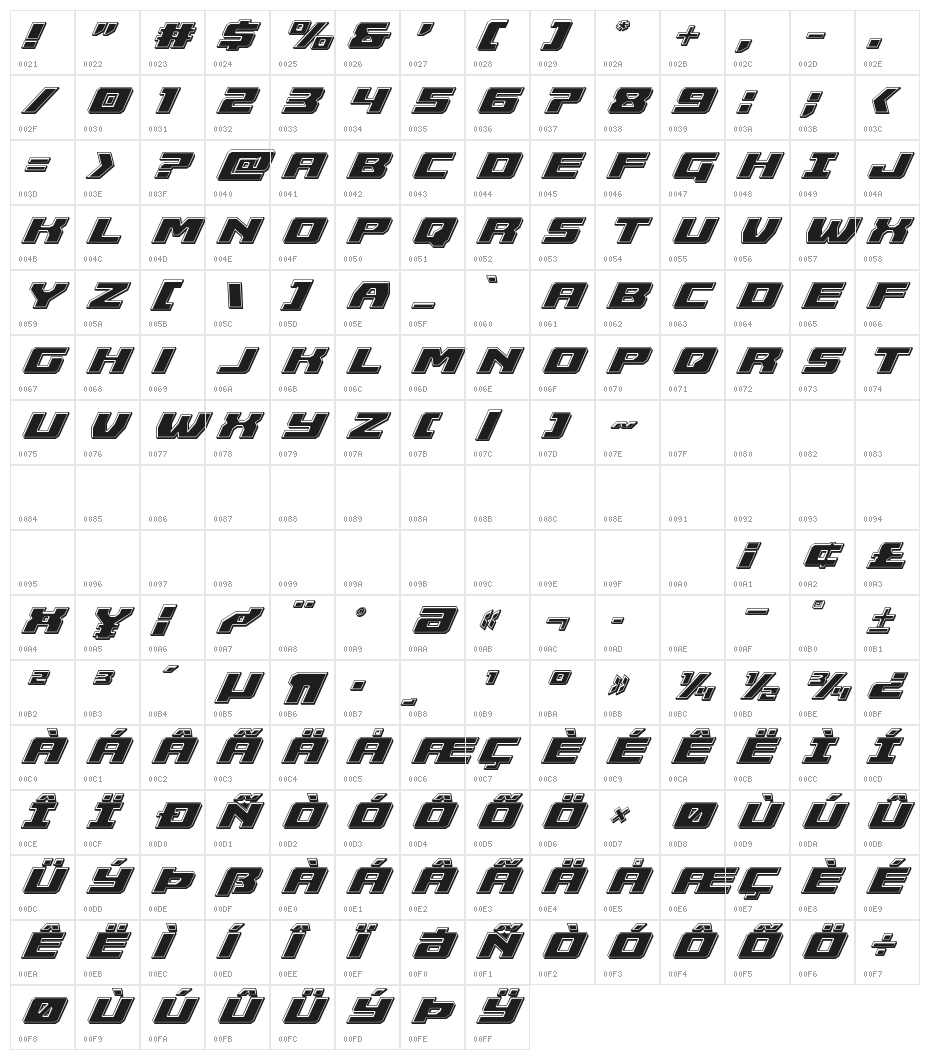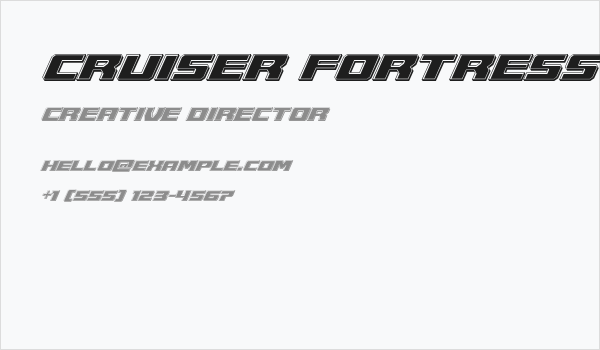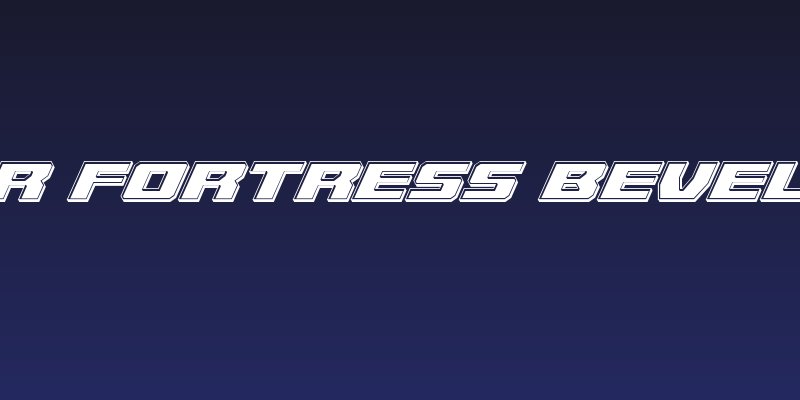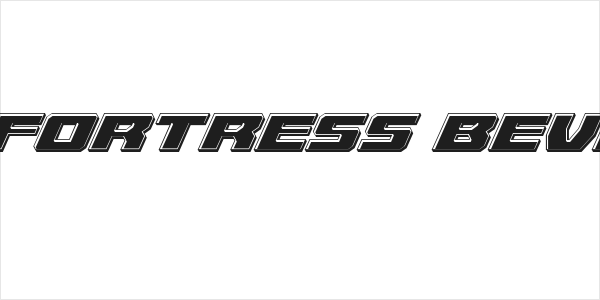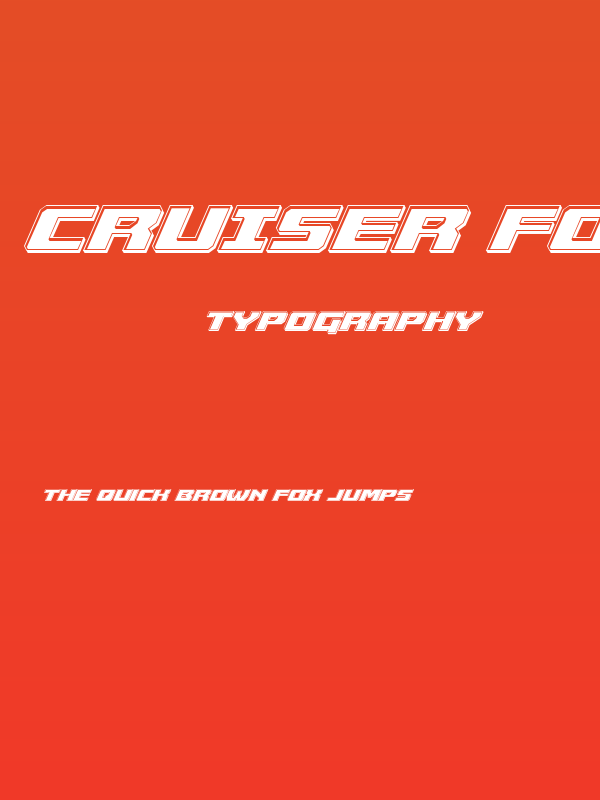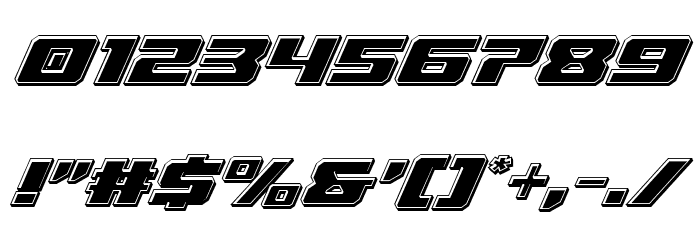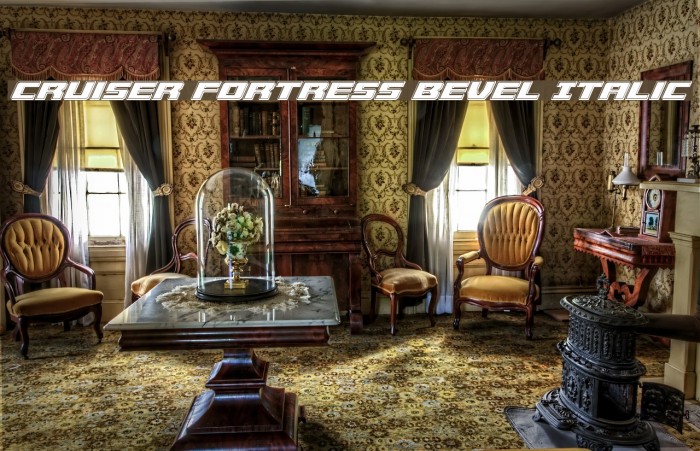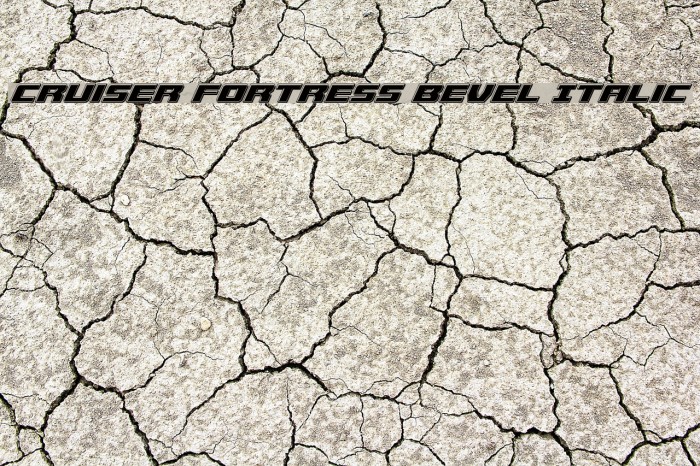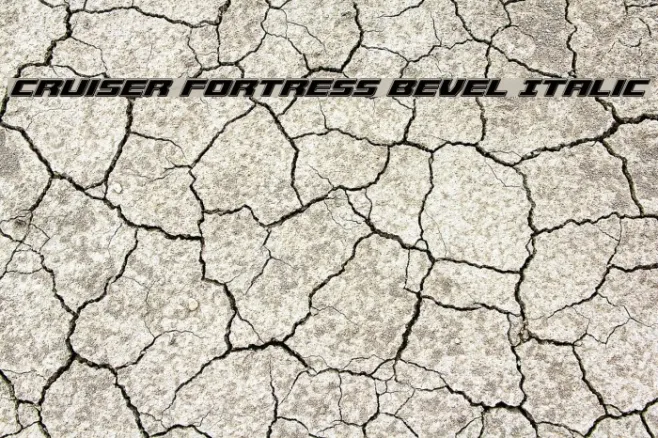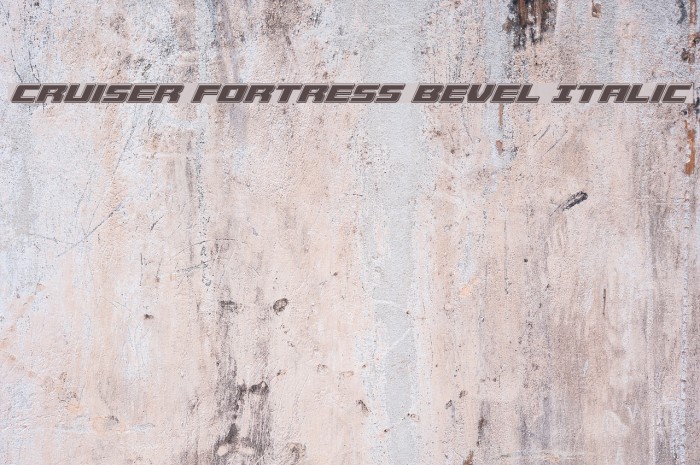
Cruiser Fortress Bevel Italic Font
Cruiser Fortress Bevel Italic Description
This font features a bold, beveled design with a strong, futuristic aesthetic. The characters are italicized, giving a sense of motion and dynamism. Each letter is outlined with a thick border, enhancing its three-dimensional appearance. The font is highly stylized, with sharp angles and a geometric structure that conveys a sense of strength and modernity. It is well-suited for projects that require a bold and impactful visual statement, such as branding, posters, or video game titles. The numbers and special characters maintain the same bold and beveled style, ensuring consistency across all text elements.
| Proposed Projects | Ideal for branding, posters, video game titles, and any project needing a bold visual impact. |